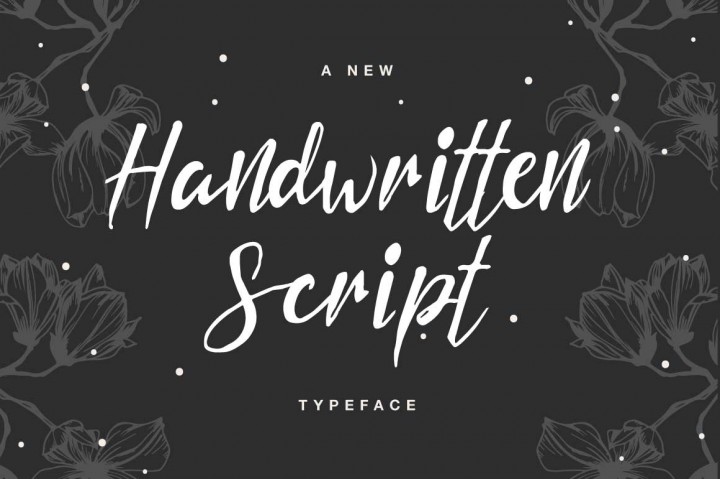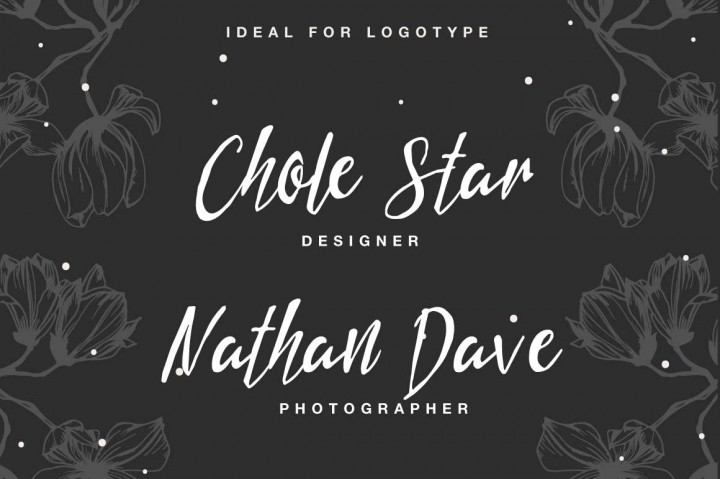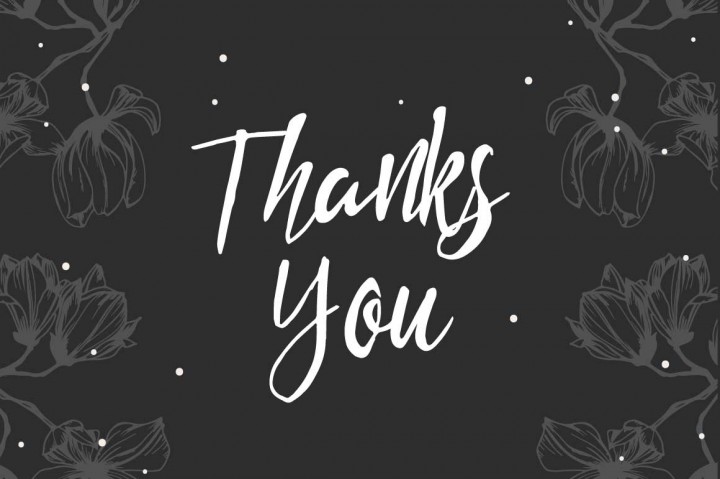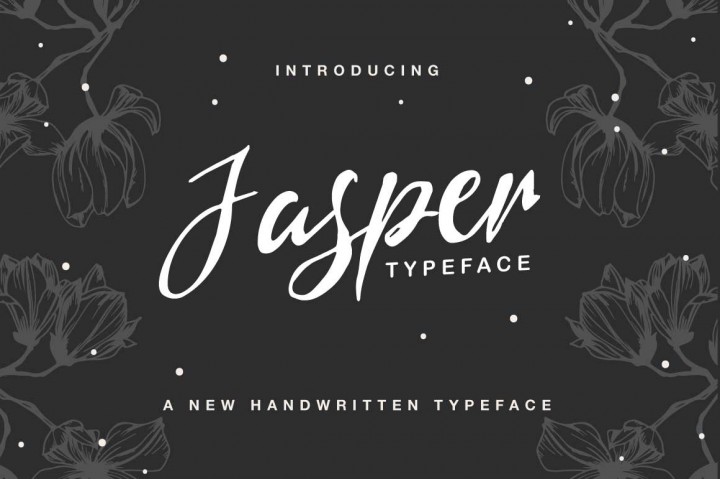
Jasper Typeface
Jasper Typeface is a beautiful A New Handwritten Typeface Style give the Unique looks.
Great for Apparel Brand, Logos, printed quotes, invitations, image overlays, greeting cards, product packaging, text headers, any greeting cards, book cover, Painting design style, or any design that needs natural and personal touch & whatever else your imagination holds! Mix and match the alternate characters to add an attractive message to your design.